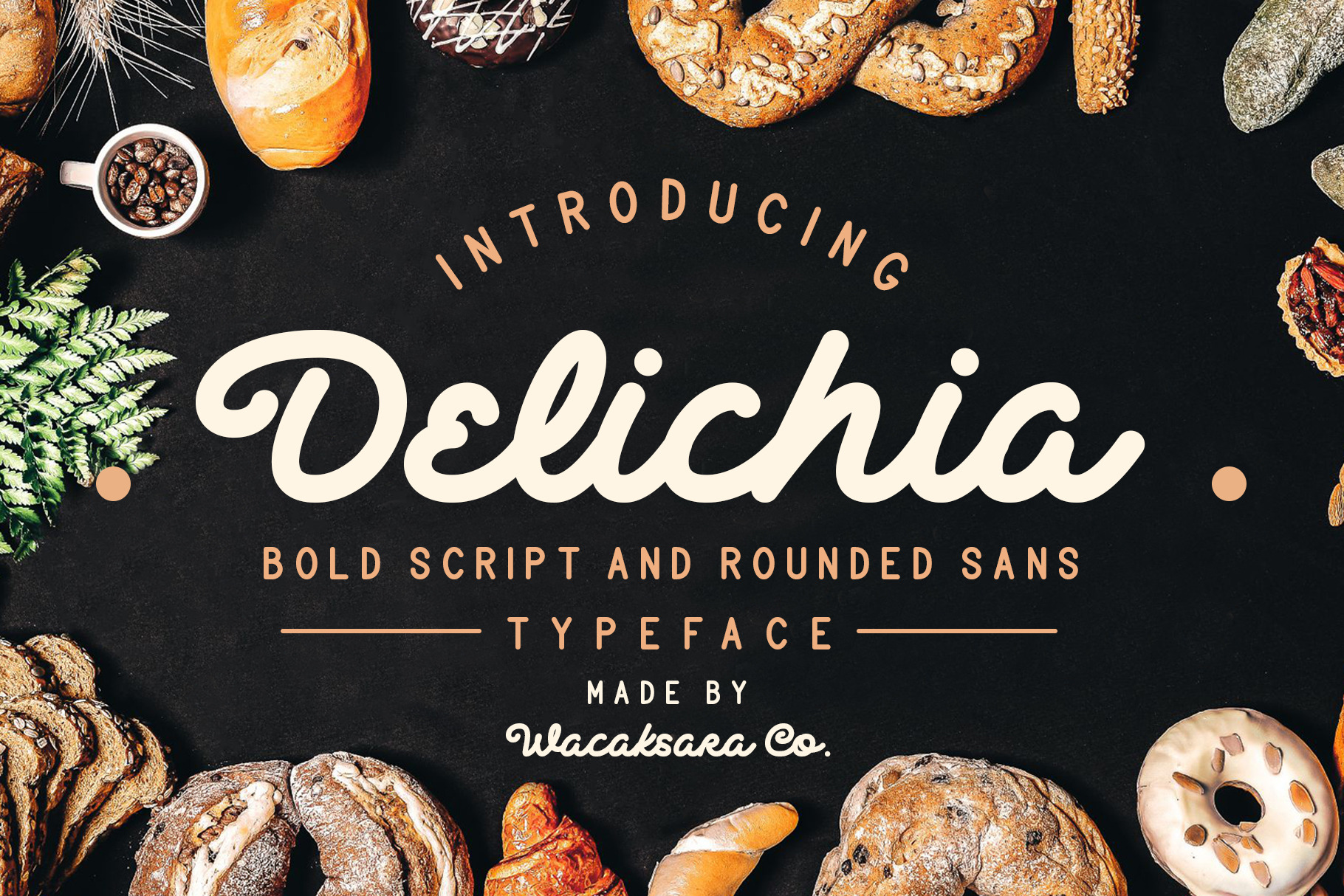
Delichia Font
Delichia Font is a pair of the bold connected script that moves in clean, sweeping dramatic gestures and rounded sans typeface. Inspire by the smell of the bakery this font is a perfect ingredient to make your design look tasteful.
Delichia Font is great to use for logotype, restaurant menu, product labels, printable, branding, social media post and text overlay to any background picture.